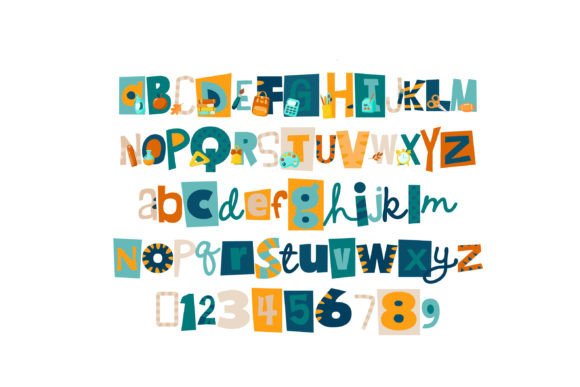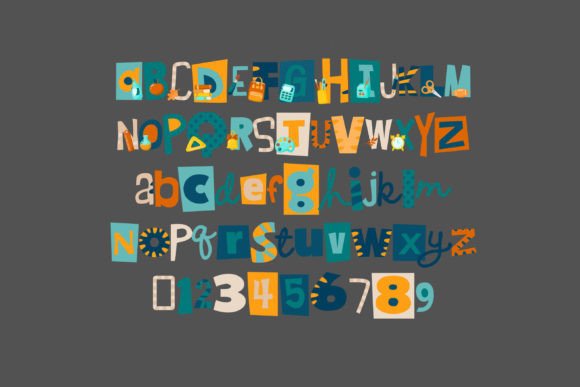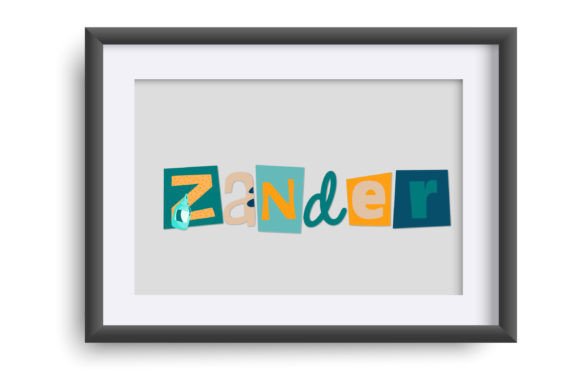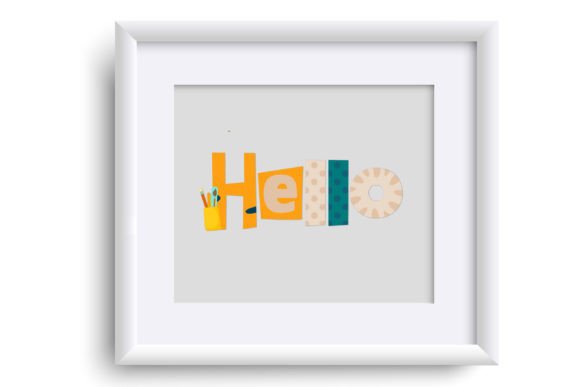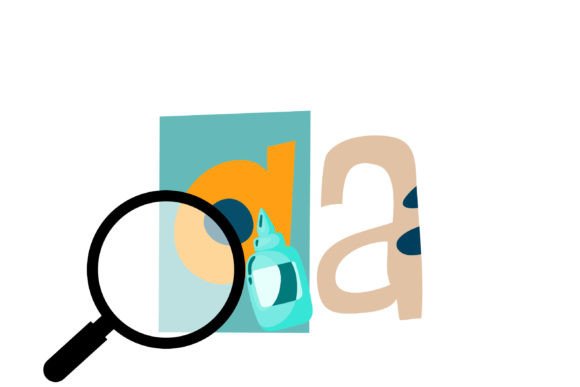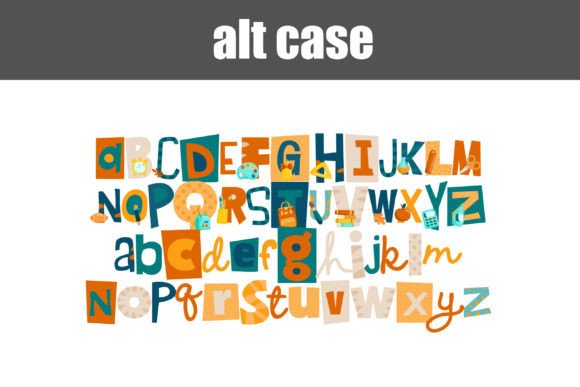
Introducing Creative Class Font: A Whimsical Addition to Your Design Toolbox
Are you a designer, crafter, or educator looking for a unique and playful font to add some personality to your projects? Look no further than the Creative Class Font! This full-color font features whimsical lettering and school supplies, making it perfect for a variety of creative applications. In this article, we’ll take a closer look at the Creative Class Font, its features, and how to use it in your designs.
What is Creative Class Font?
The Creative Class Font is a digital font that combines traditional lettering with modern school supplies, such as pencils, pens, and rulers. The font is designed to evoke a sense of nostalgia and playfulness, making it ideal for projects that require a touch of whimsy. The font features full-color SVG (Scalable Vector Graphics) technology, which allows for vibrant, detailed designs that can be scaled up or down without losing any quality.
Key Features of Creative Class Font
- Whimsical lettering and school supplies: Each letter and symbol in the font is carefully designed to incorporate school supplies, making it a unique and eye-catching addition to your designs.
- Full-color SVG technology: The font features vibrant, full-color designs that can be scaled up or down without losing any quality.
- Alt version with additional colors: An alternate version of the font is available through your system’s character map, which includes additional colors for all letters.
Using Creative Class Font in Your Designs
The Creative Class Font can be used in a variety of design applications, including:
Here are a few tips and tricks to keep in mind when using the Creative Class Font:
- Use it for educational projects: The font is perfect for educational projects, such as worksheets, posters, and presentations.
- Add a personal touch: The font’s whimsical design makes it a great addition to personal projects, such as invitations, cards, and scrapbooking pages.
- Experiment with colors: The font’s full-color technology allows for a wide range of color options, so don’t be afraid to experiment and find the perfect color scheme for your design.
In conclusion, the Creative Class Font is a unique and playful addition to any design toolbox. With its whimsical lettering and school supplies, full-color SVG technology, and easy installation process, it’s perfect for designers, crafters, and educators looking to add some personality to their projects. Whether you’re creating educational materials, personal projects, or professional designs, the Creative Class Font is sure to inspire creativity and bring a touch of whimsy to your work.